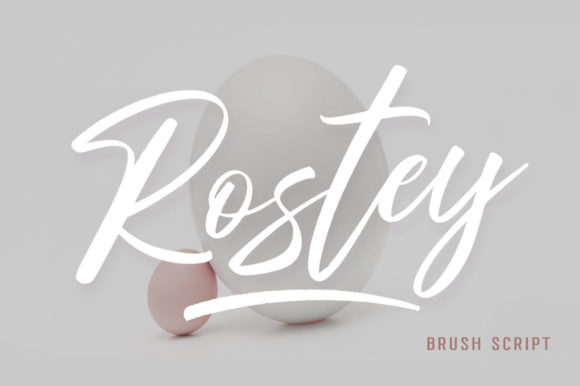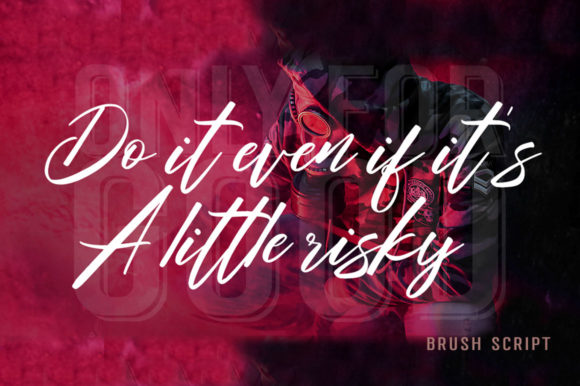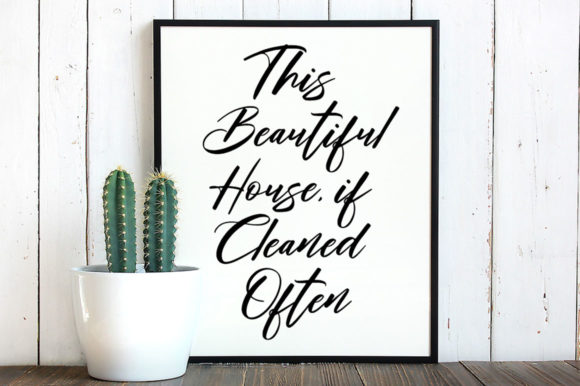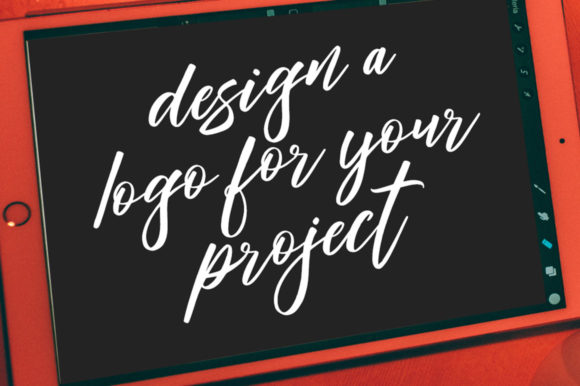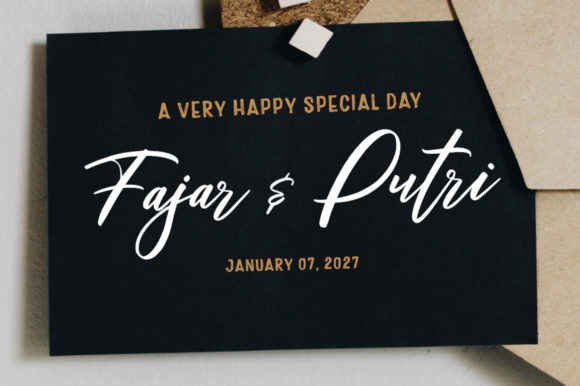
Rostey Font
About Rostey Font
Rostey is a beautiful calligraphic brush font. This fantastic handwritten font is best suited for headlines of all sizes, as well as for blocks of text that have both maximum and minimum variations.